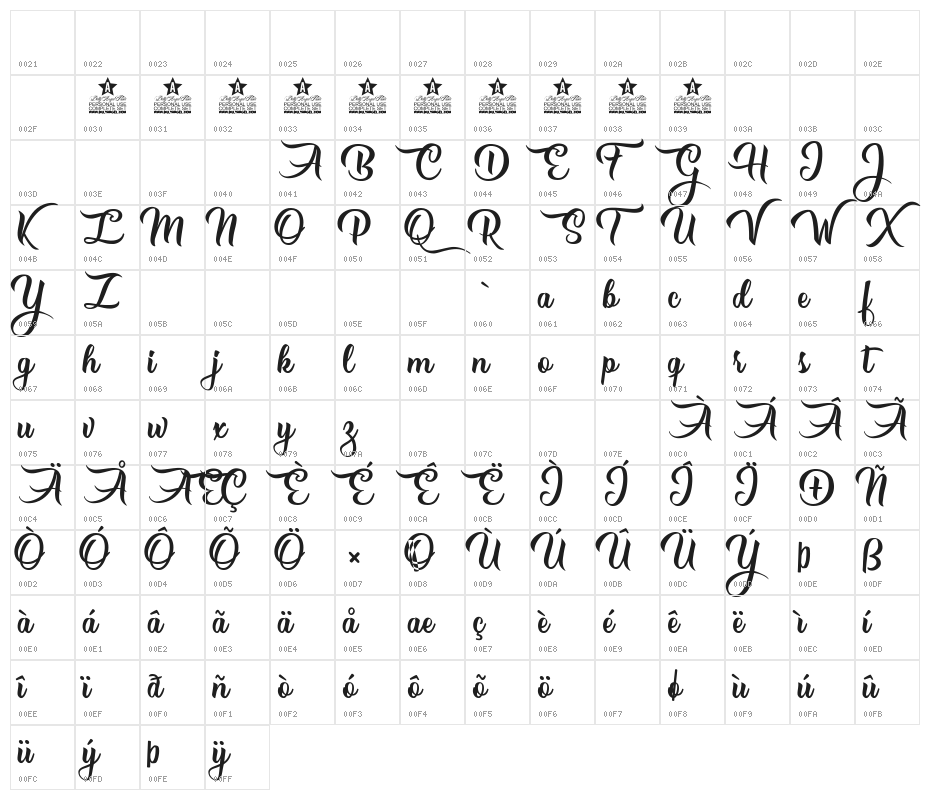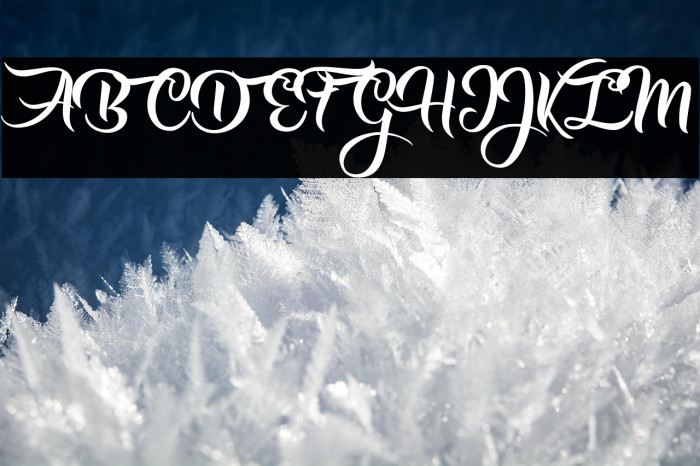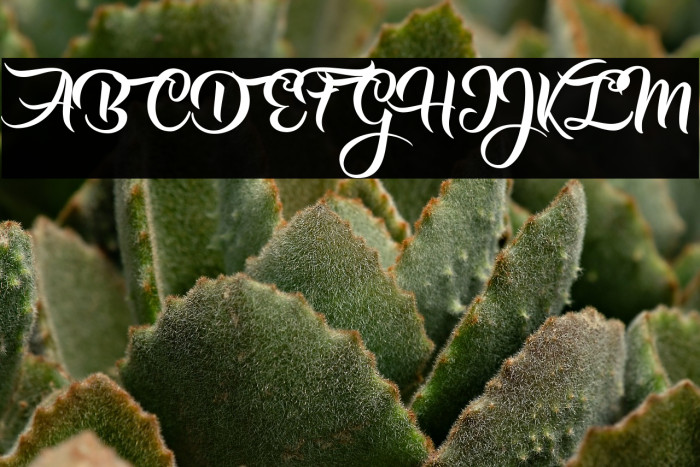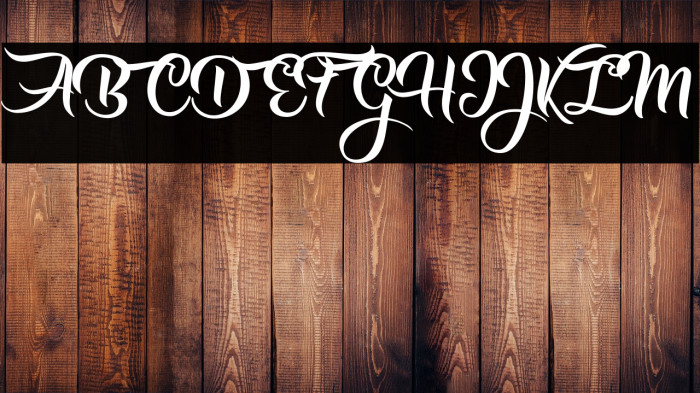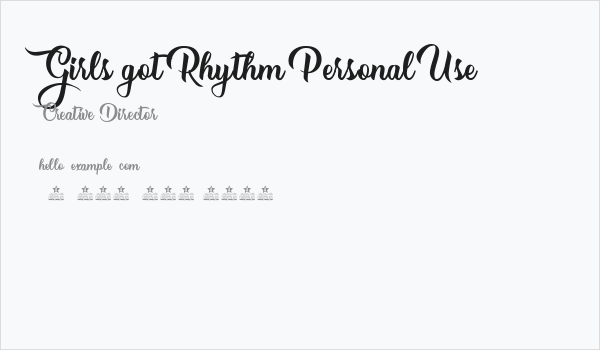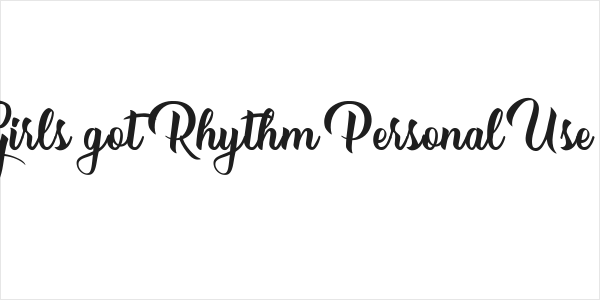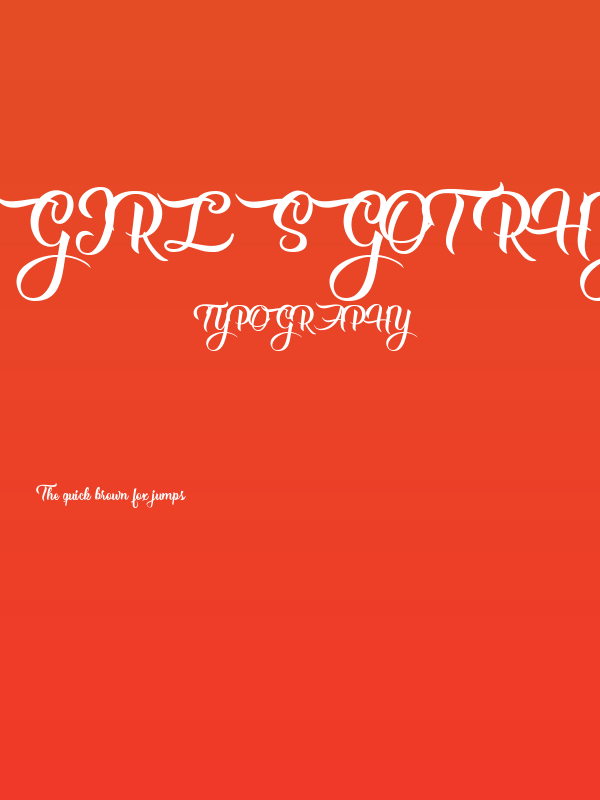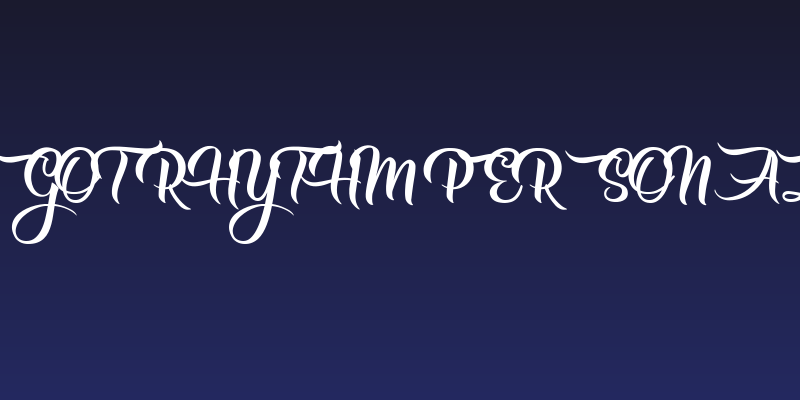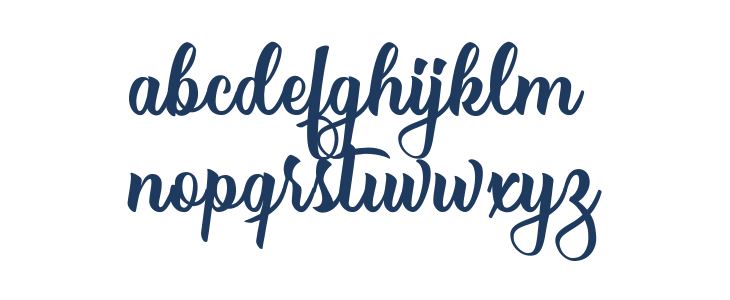
Girls got Rhythm Personal Use Font
Girls got Rhythm Personal Use Description
This font features a dynamic and expressive script style, characterized by flowing, interconnected letters with a bold presence. The uppercase letters exhibit elegant swashes and flourishes, giving a sense of movement and rhythm. The lowercase letters maintain a consistent flow, enhancing the script's cohesive look. The font's overall design is reminiscent of calligraphy, with a modern twist that adds a touch of sophistication. Its bold strokes and intricate details make it suitable for eye-catching designs, while maintaining legibility.